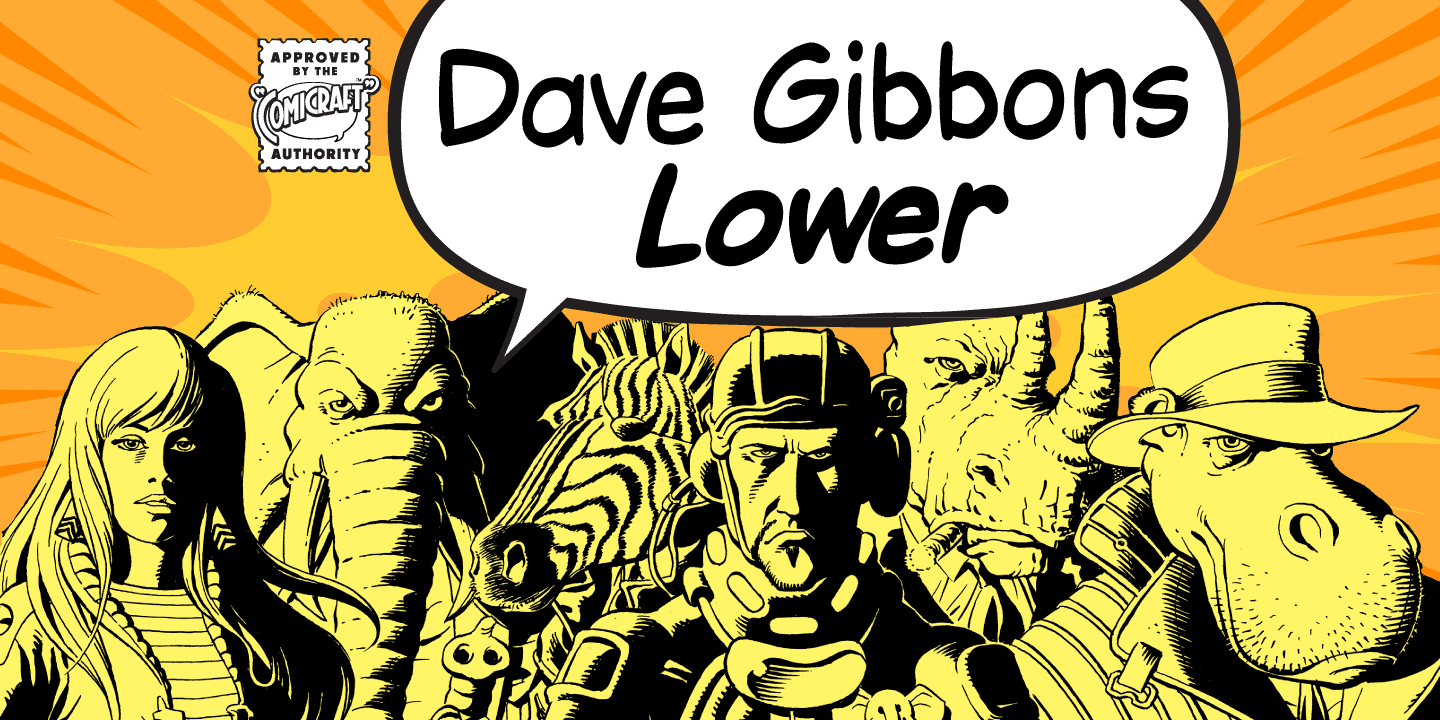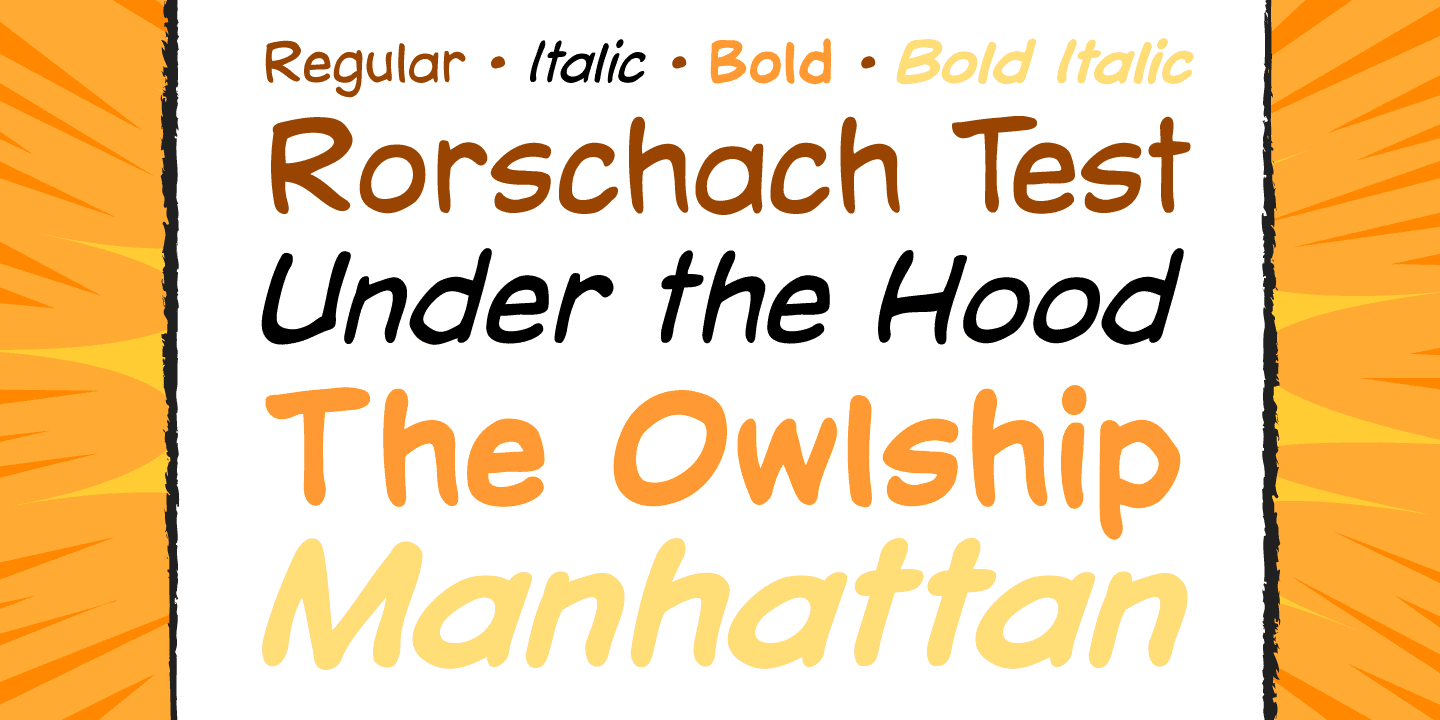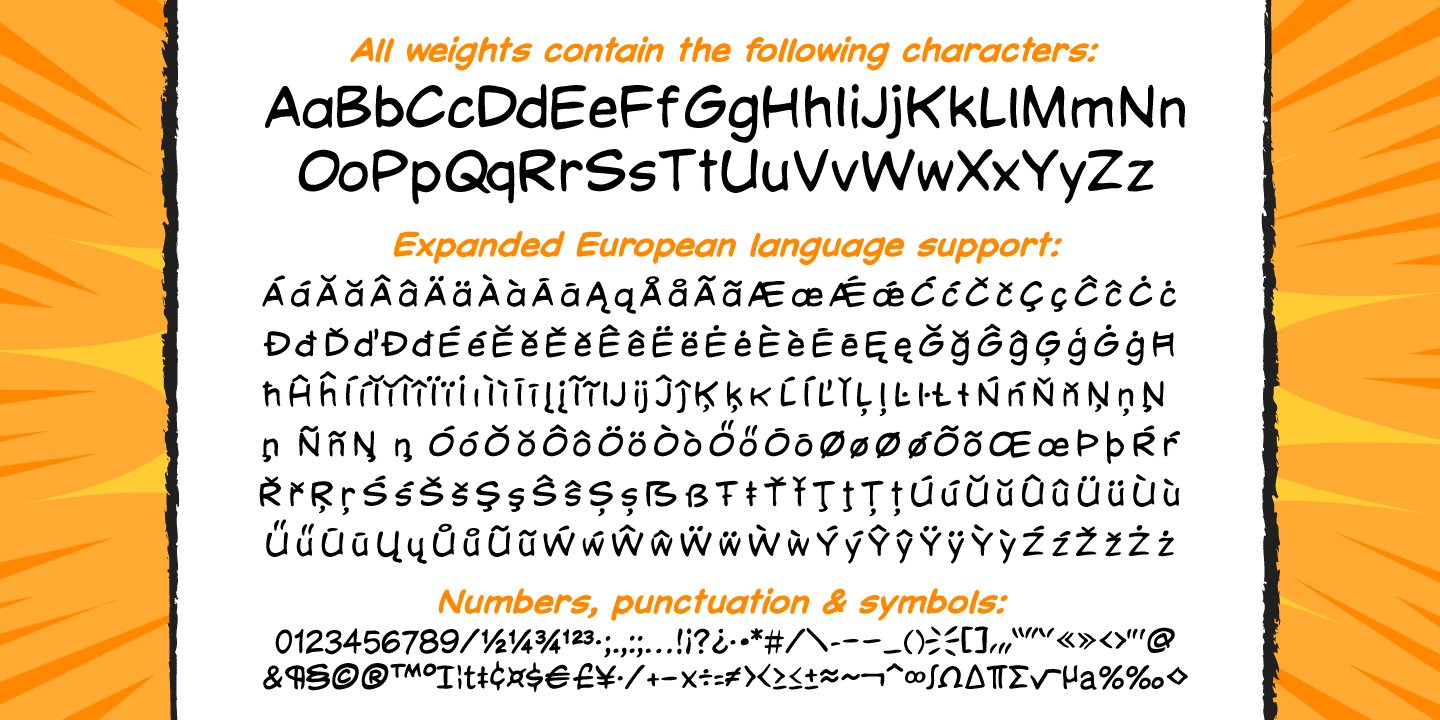
Dave Gibbons Lower
Other guys may imitate him, but the original is still the greatest! Get in with the In Crowd and check out the font created by Mister Fontastic for Dave Gibbons Original Graphic Novel, The, ah, The Originals.
Yes, Dave Gibbons now comes in lower case, it’s not just what he does when he gets back from the off license. Be sure and pick up The Originals from Amazon -- now available in paperback, and probably still available as a hard case, much like Dave.